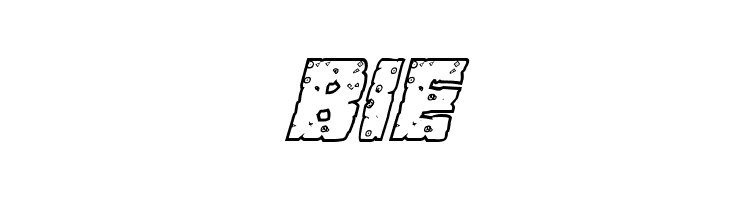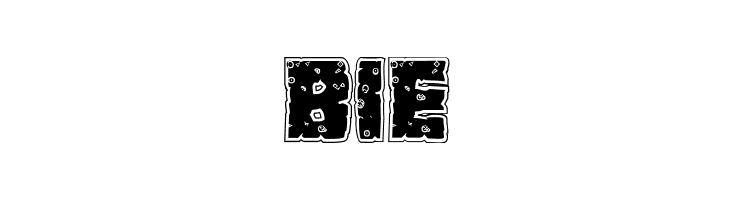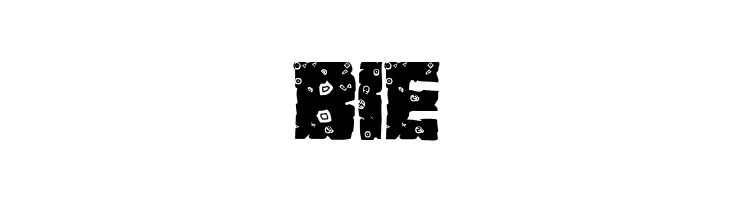
A playful, ghost-themed decorative font with a whimsical and spooky style.
( Fonts by Sacred Nipple - Brode Vosloo )
A distressed, chaotic font with jagged, uneven strokes for an edgy look.
( Fonts by Mike Wolf )
A bold, rounded font with an industrial, mechanical aesthetic.
( Fonts by Cumberland Fontworks - http://www222.pair.com/sjohn/fonts.htm - S. John Ross )
A bold, distressed font with a vintage, rugged style.
A modern, geometric sans-serif font with clean lines and balanced spacing.
( Fonts by TarmSaft Font Factory - http://www.aska.nu/tarmsaft/ )
A bold, outlined font with a three-dimensional effect, perfect for impactful headlines.